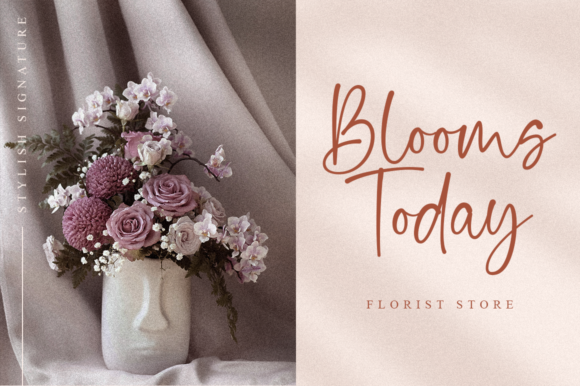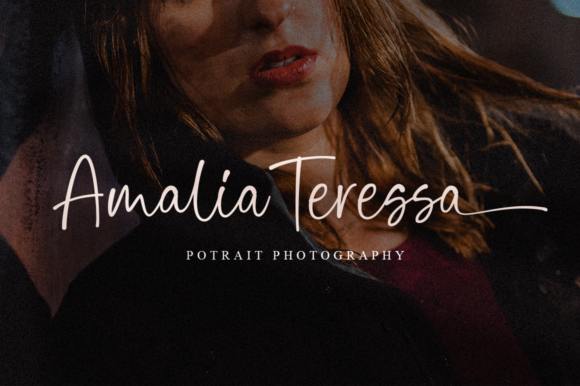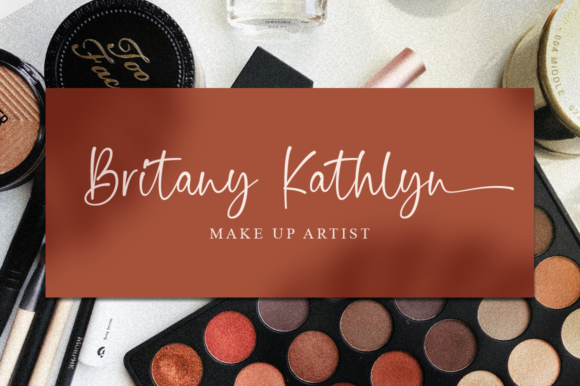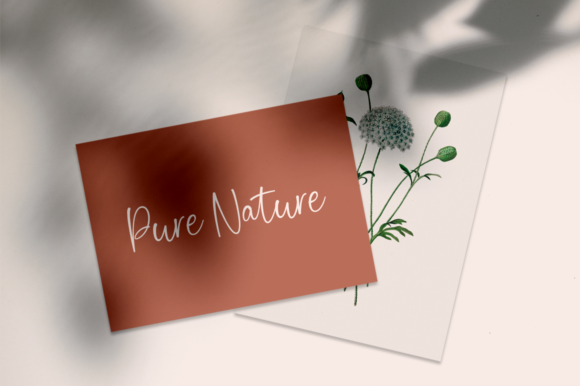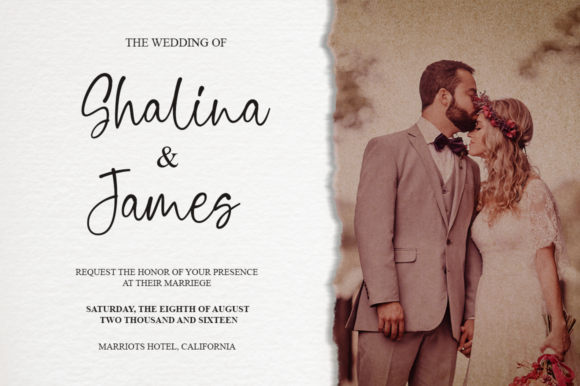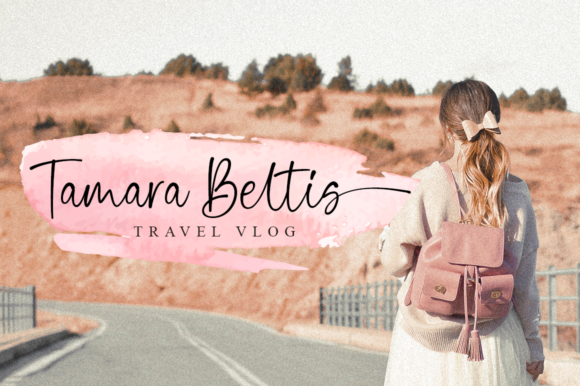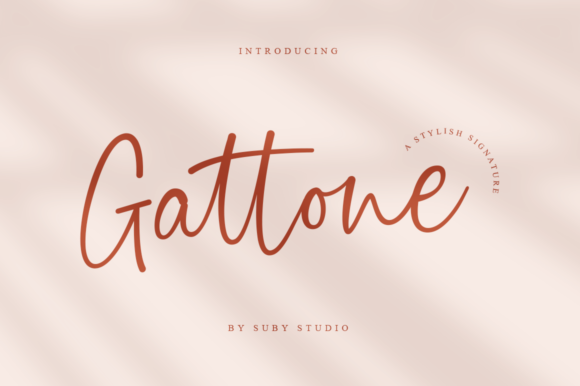
Gattone Font: Elevate Your Designs with Elegance and Sophistication
Are you on the hunt for a font that exudes elegance, sophistication, and a touch of timeless charm? Look no further than Gattone, a stunning flowing handwritten font that is sure to capture your heart. With its incredibly distinct style, Gattone is the perfect addition to your favorite projects, allowing you to create spectacular designs that leave a lasting impression.
The Unique Characteristics of Gattone Font
Gattone is more than just a font – it’s an experience. This beautiful handwritten font boasts an elegant touch that sets it apart from the rest. Its unique characteristics include:
- Varying Baseline: Gattone’s varying baseline gives it a natural, handwritten feel that adds a touch of warmth and personality to your designs.
- Smooth Lines: The font’s smooth lines and curves create a sense of fluidity and continuity, making it perfect for creating elegant and sophisticated designs.
- Gorgeous Glyphs: Gattone features a wide range of gorgeous glyphs, including stunning alternates that allow you to add a touch of uniqueness to your designs.
- PUA Encoded: As a PUA encoded font, Gattone makes it easy to access all of its glyphs and swashes, giving you complete creative control.
Why Designers and Crafters Love Gattone Font
So, what makes Gattone a favorite among designers and crafters? Here are just a few reasons:
- Timeless Style: Gattone’s classic, elegant style ensures that your designs will never go out of fashion, making it a great investment for any designer or crafter.
- Versatility: Whether you’re creating wedding invitations, branding materials, or digital products, Gattone’s versatility makes it the perfect choice.
- Easy to Use: With its PUA encoding and user-friendly design, Gattone is easy to use, even for those with limited design experience.
- Unique and Distinctive: Gattone’s unique style ensures that your designs will stand out from the crowd, making it perfect for designers and crafters who want to make a statement.
How to Use Gattone Font in Your Designs
Ready to fall in love with Gattone and start creating spectacular designs? Here are a few tips to get you started:
- Pair it with Other Fonts: Gattone pairs beautifully with other fonts, making it easy to create stunning font combinations that add depth and interest to your designs.
- Experiment with Swashes and Glyphs: With Gattone’s PUA encoding, you can easily access its gorgeous swashes and glyphs, adding a touch of elegance and sophistication to your designs.
- Use it for Headings and Titles: Gattone’s elegant style makes it perfect for headings and titles, adding a touch of class and sophistication to your designs.
In conclusion, Gattone font is a stunning addition to any designer’s or crafter’s toolkit. With its elegant touch, unique characteristics, and timeless style, Gattone is the perfect choice for creating spectacular designs that leave a lasting impression. Whether you’re a seasoned designer or just starting out, Gattone is sure to capture your heart and inspire your creativity.